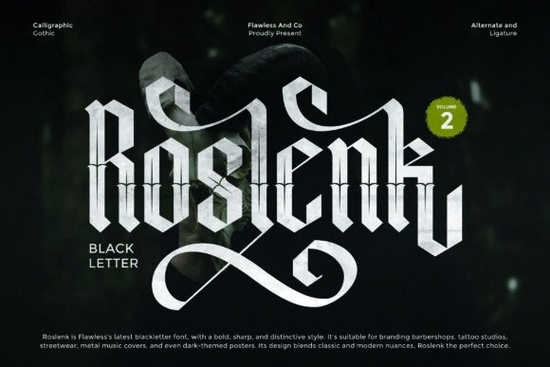
If you are looking for a typeface that brings a sharp, Gothic edge to your projects, the Roslenk Volume 2 typeface is a strong contender. It takes traditional blackletter calligraphy and gives it a modern, aggressive twist. This makes it highly effective for brands that want to stand out with a bold, dark aesthetic. Whether you are designing a logo for a local barbershop or laying out text for a heavy metal album cover, this style delivers the right mix of historical elegance and raw power.
What projects work best with this blackletter style?
When you are working on branding for a tattoo studio or a streetwear clothing line, you need typography that grabs attention immediately. This specific design has a sharp, striking character that fits perfectly into those spaces. It is also a great choice for dark-themed event posters, merchandise tags, and music covers. Print-on-demand sellers often find that dark, edgy typography sells incredibly well on t-shirts and hoodies because it taps into alternative fashion trends. If you want to explore similar vibes for different projects, you might also want to check out the Nocturne Black typeface for a slightly different moody aesthetic, or the Darkhusk lettering style when you need something a bit more rugged for a horror-themed layout.
How do I access the swashes and alternate characters?
Is it easy to read for longer text?
Blackletter fonts are inherently dense. Because of the thick strokes and sharp angles, this style is best used for headlines, logos, and short phrases rather than long paragraphs. If you are designing a poster or a flyer, use this typeface for the main title and pair it with a clean, simple sans-serif for the body text. This contrast ensures your message remains readable while keeping the overall design visually striking. Small business owners should remember that legibility is just as important as style. For more intricate lettering needs where you might need a different weight, you could also look into the Necrosarqe Regular design to see how different styles can affect your layout.
What are the best practices for using heavy typography?
Working with bold blackletter styles requires a careful eye for spacing and layout. The intricate details of the letters can easily become muddy if they are placed too close together or printed on a busy background. Always give your text room to breathe. When applying this to merchandise, make sure the design is scaled appropriately so the sharp edges do not blur during the printing process. Testing a physical sample before ordering a large batch of apparel is always a smart move to ensure the fine details hold up on fabric.
Before you finalize your next design, run through this quick checklist:
- Check your contrast: Ensure your background color provides enough contrast for the thick, dark strokes.
- Test the alternates: Spend a few minutes in your glyph panel to find the best swashes for your specific layout.
- Keep it brief: Limit the use of this blackletter style to headlines and short phrases to maintain readability.
- Pair wisely: Balance the heavy typography with plenty of white space and a clean secondary font.
- Print a proof: Always check a physical sample to ensure the sharp edges remain crisp on your final product.